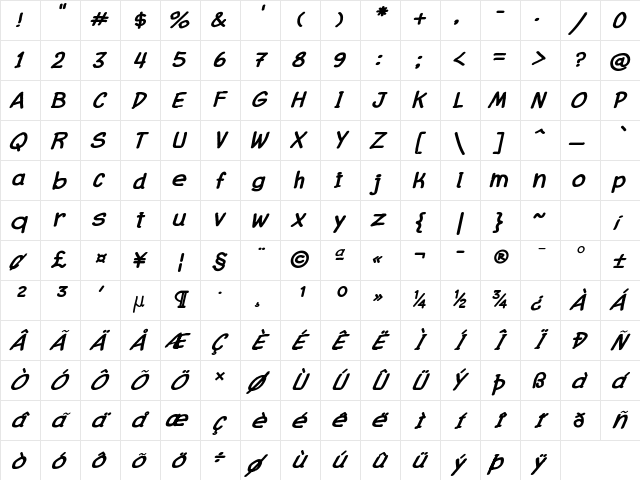
Comic Balloon New Bold Italic Free Font
Comic Balloon New Bold Italic
Design Context for Comic Balloon New
Comic Balloon New has an approachable, lighthearted character - its loose, expressive forms are well-suited to children's content, casual branding, and fun-first design. The slanted form adds forward momentum and visual energy.
Font Pairing: Pairs well with a rounded or humanist sans for body copy, maintaining the friendly tone without relying on Comic Balloon New to carry extended reading.
Pro Tip: Use Comic Balloon New at larger display sizes where its expressive character can land. Pair with a clean, simple sans for body copy to maintain readability.